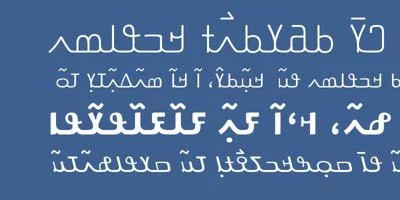
Kigelia N'ko Font
Kigelia N’ko Font
Kigelia N’ko Font is a typeface designed specifically for the N’ko script, used primarily for Manding languages in West Africa. Developed with cultural sensitivity and typographic clarity in mind, Kigelia N’ko offers a readable, modern approach to this script, making it suitable for educational materials, publishing, signage, and digital content.
With careful attention to traditional letterform structure and contemporary typographic standards, Kigelia N’ko Font ensures legibility while respecting the script's heritage. It is ideal for linguists, educators, publishers, and designers working on projects in or about the Manding language family.